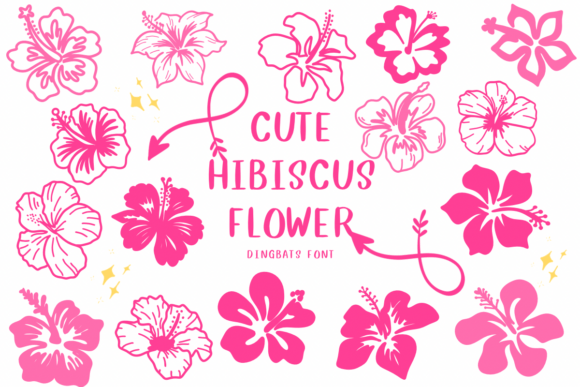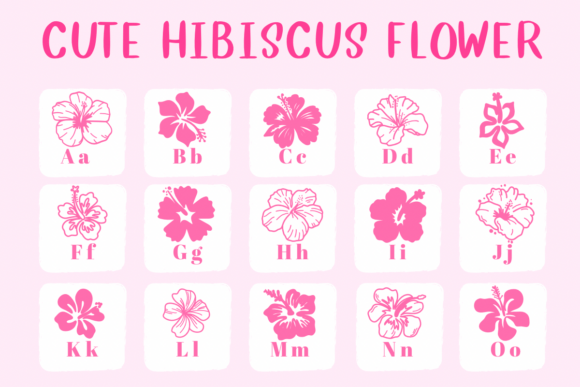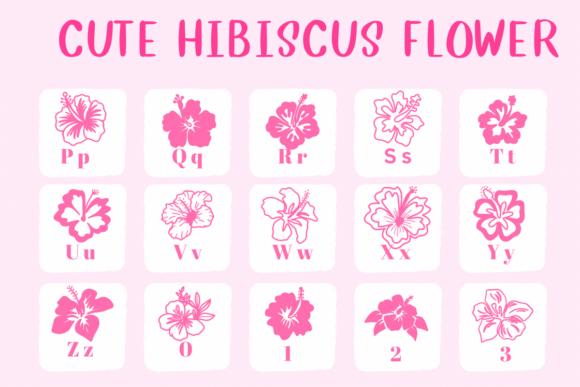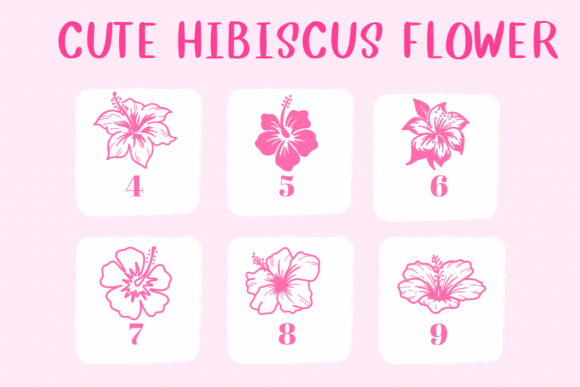
Cute Hibiscus Flower Font
About the Cute Hibiscus Flower Font
Discover the charm of Cute Hibiscus Flower Font. This font is a perfect blend of modern aesthetics and classic appeal. Let your creativity bloom with
Cute Hibiscus Flower
, a dingbat font filled with charming hibiscus shapes in various styles. Ideal for adding a floral flair to your designs, this font is perfect for summer invitations, greeting cards, and tropical branding.
Cute Hibiscus Flower excels in projects requiring a lighthearted, summery feel. It’s best suited for headlines, short text blocks on invitations, social media graphics, and packaging for products with a tropical or floral theme. Avoid using it for body text or lengthy paragraphs; its decorative nature makes it less legible for extended reading.
This font’s playful personality pairs well with clean sans-serif fonts like Montserrat or Open Sans for a balanced contrast. For a more sophisticated look, consider pairing it with a delicate serif like Lora or a slightly more geometric sans-serif like Lato. Avoid pairing it with other heavily ornamented or decorative fonts, as this can create visual clutter.
The overall mood is cheerful and friendly, making it perfect for brands associated with relaxation, summer events, or products with a tropical aesthetic.
Cute Hibiscus Flower Font Usage Examples
Cute Hibiscus Flower Font Example